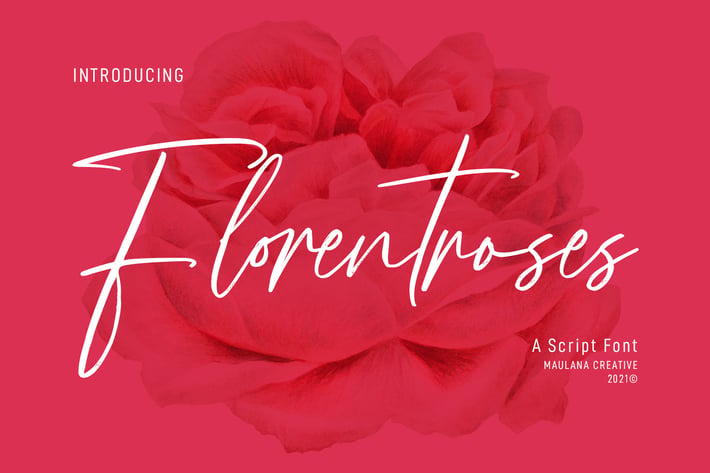
Florentroses Signature Font
Florentroses is an elegant signature font. With light stroke, slanted and fun character with a rich of ligatures. To give you an extra creative work. Florentroses font support multilingual more than 100+ language. This font is good for logo design, Social media, Movie Titles, Books Titles, a short text even a long text letter and good for your secondary text font with sans or serif. Make a stunning work with Florentroses font.